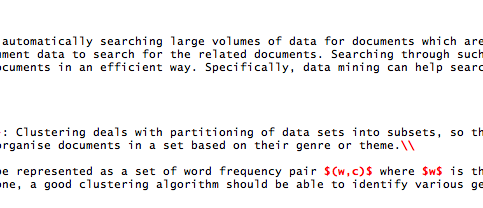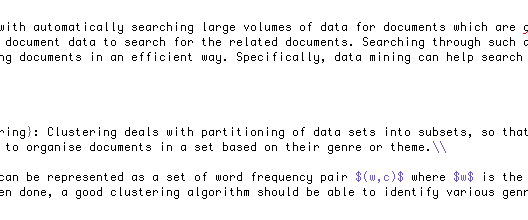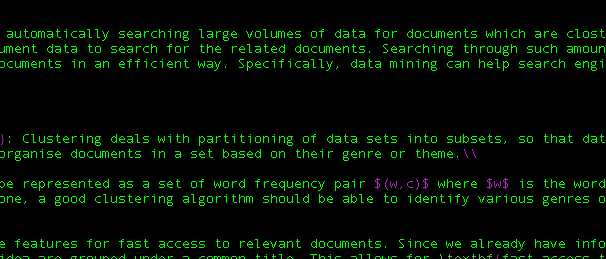
Since all the computers in my school only have vi (vim) or emacs installed by default on their machine, I decided to use and learn vi. (I can use emacs too but let us keep this editor war aside).
Doing a google, I figured out there are two vim that I can use in Mac OS X. I can either start termiinal and use the vim bundled with it. The version is 6.2. Or I can download a proper Mac app from http://www.macvim.org.
So I decided to try both.
The first thing I did was to change the default through .vimrc. So my .vimrc has the entry:
set guifont=Monaco:h12
Now my vim looks differnet in 3 differnet cases. Running Vim.app which gives me something like vim_app.png
If I run it through iTerm, I get like: vim.png
If I run through Terminal.app, I get like: vim_terminal.png
Why all are different? The font rendering in Terminal.app is best according to me but I like Vim.app as I can do some operations from GUI using it.
Is it possible to get clarity like vs.png? (screenshot of my friends Visual Studio)
Regarding the clarity thing, no - that has to do with the anti-aliasing setting on Mac OS X, which is unable to look like Windows (with ClearType enabled) because ClearType uses sub-pixel rendering only, while Mac OS X always uses anti-aliasing and optional sub-pixel rendering. Some people say the Mac OS X way looks worse than Windows; others say it looks better.
As for the differing renderings using different ways of launching the application, this is due to some obscure bugs in Apple's type handling services, which, for some reason, only affect the GUI and not the Terminal, thus explaining why the Terminal rendering looks the best.
That sucks.
So is there any way that I can get clarity of vim in Terminal.app in Vim.app or I am stuck in using some other GUI editors like BBEdit and jEdit (which I dont want as I want to use vim in my school (where I cannot instally my own software), house and at office) where I run two diff distros of Linux and Mac.